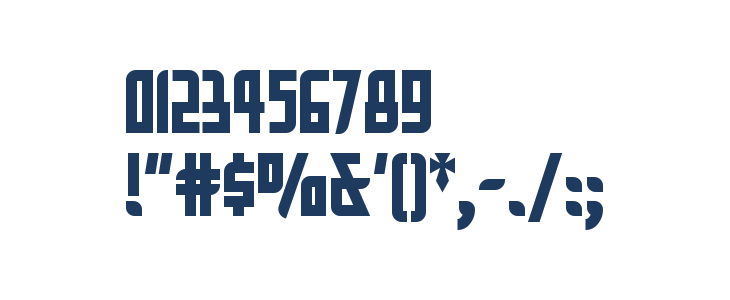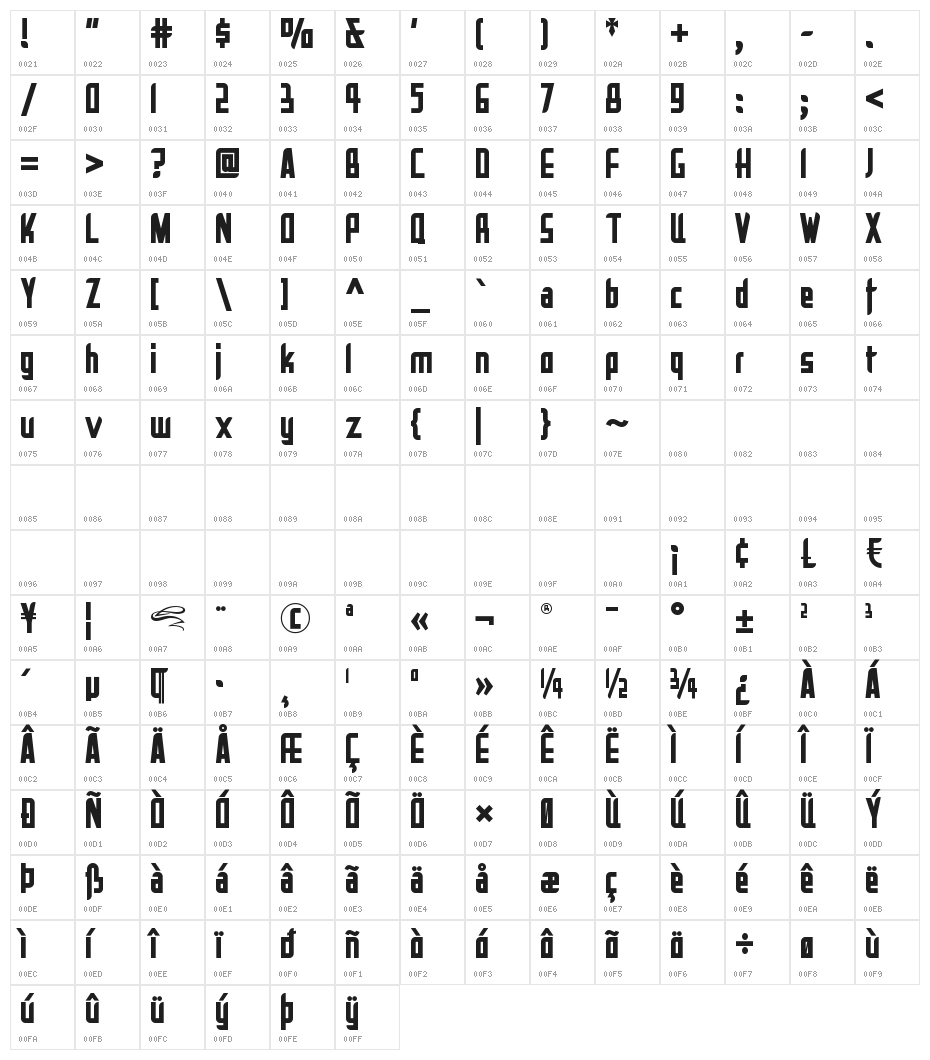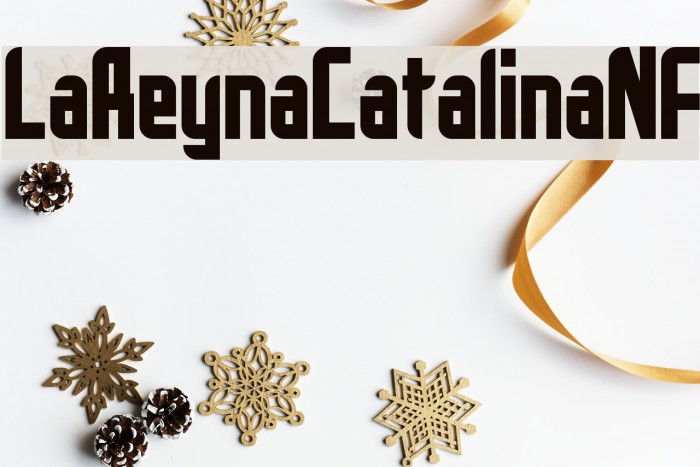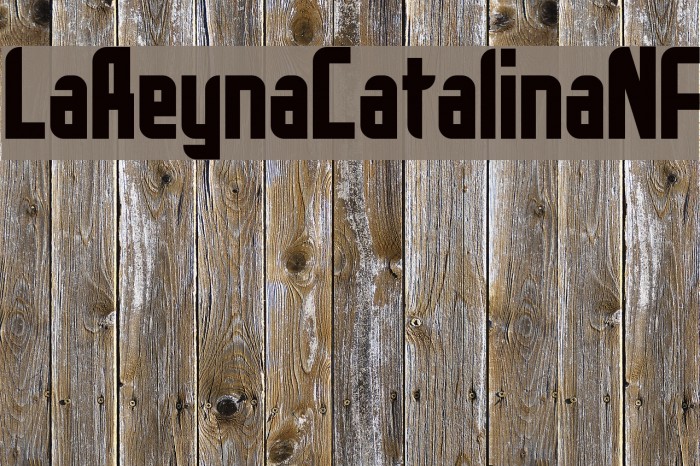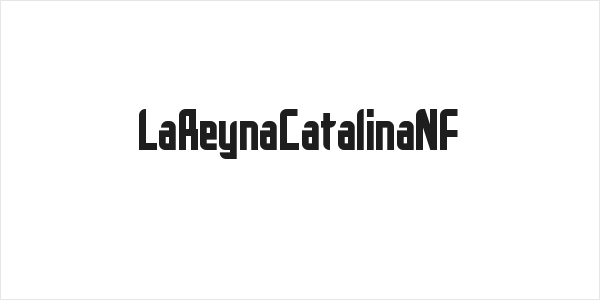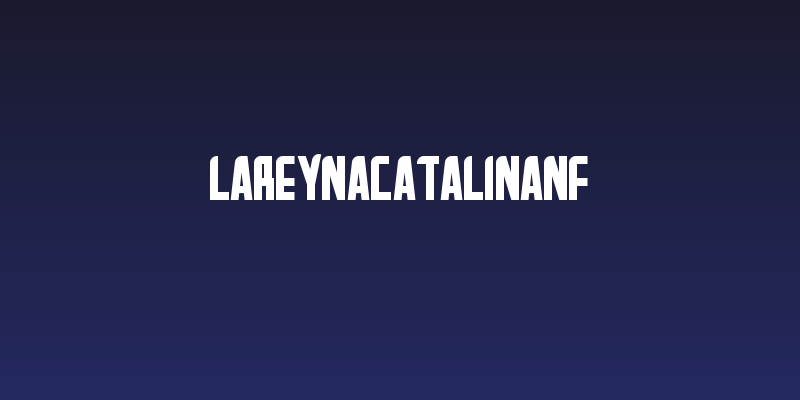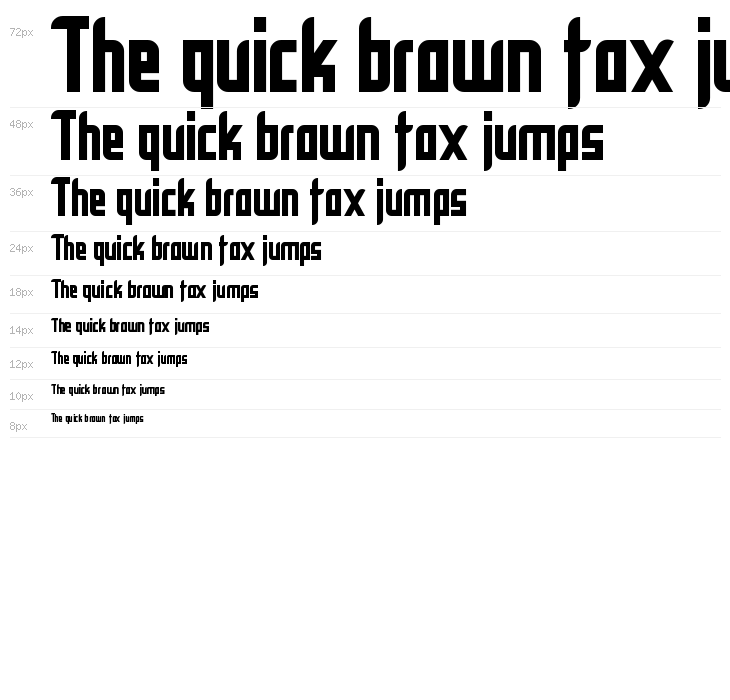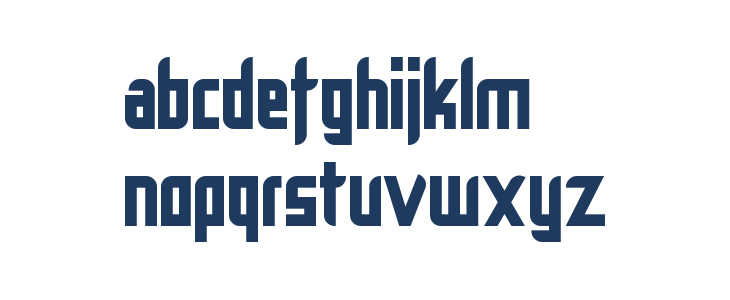
LaReynaCatalinaNF Font
LaReynaCatalinaNF Description
This font features a bold and striking design with a strong geometric influence. The characters are constructed with thick, uniform strokes that create a sense of solidity and impact. The uppercase letters are particularly angular, with sharp edges and a slightly condensed form that enhances their boldness. The lowercase letters maintain the same geometric style, providing consistency across the typeface. The numerals are equally bold, ensuring they stand out in any composition. Special characters are designed to match the overall aesthetic, making them suitable for a variety of uses. This font's unique style makes it ideal for attention-grabbing headlines and logos.